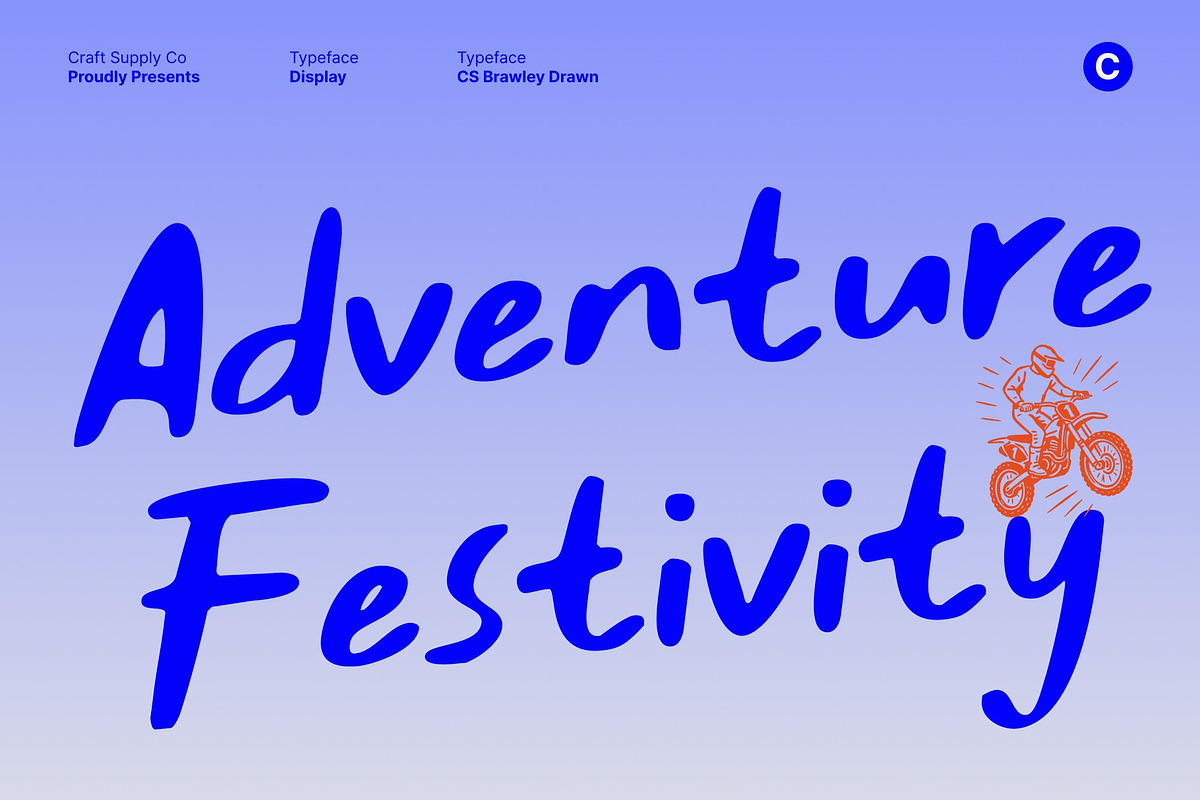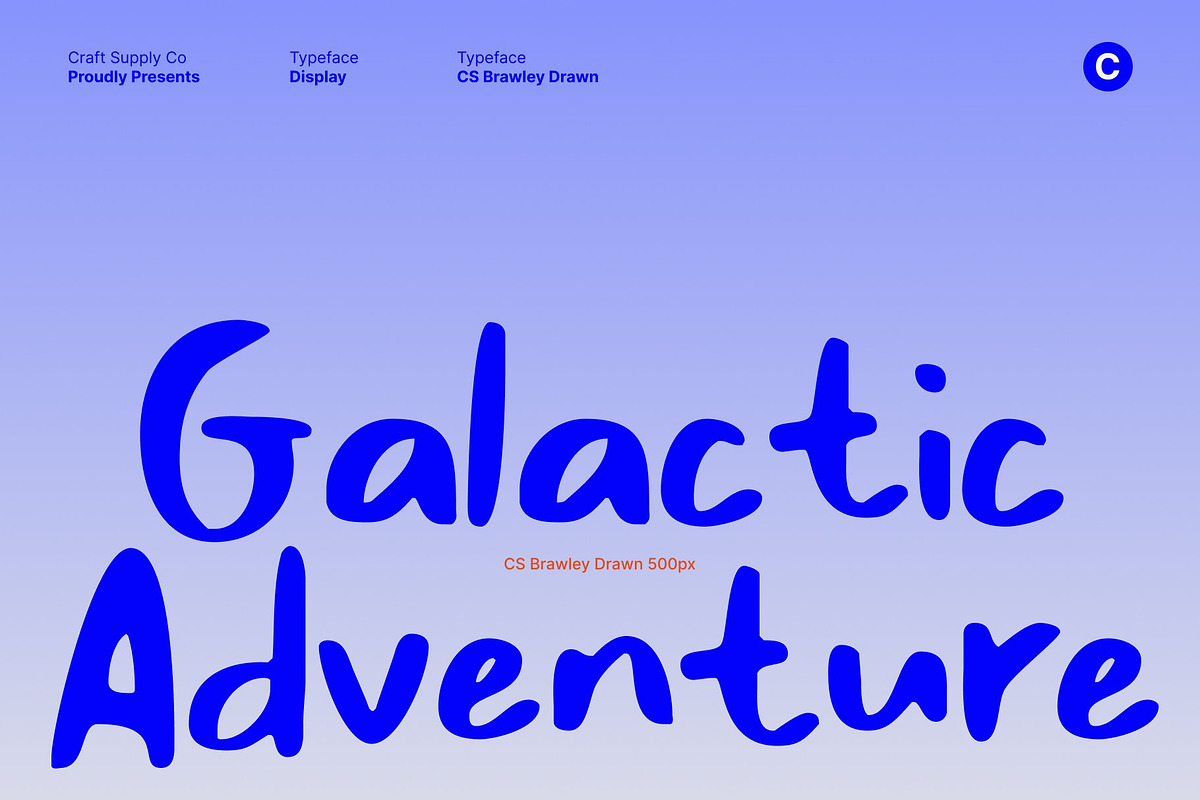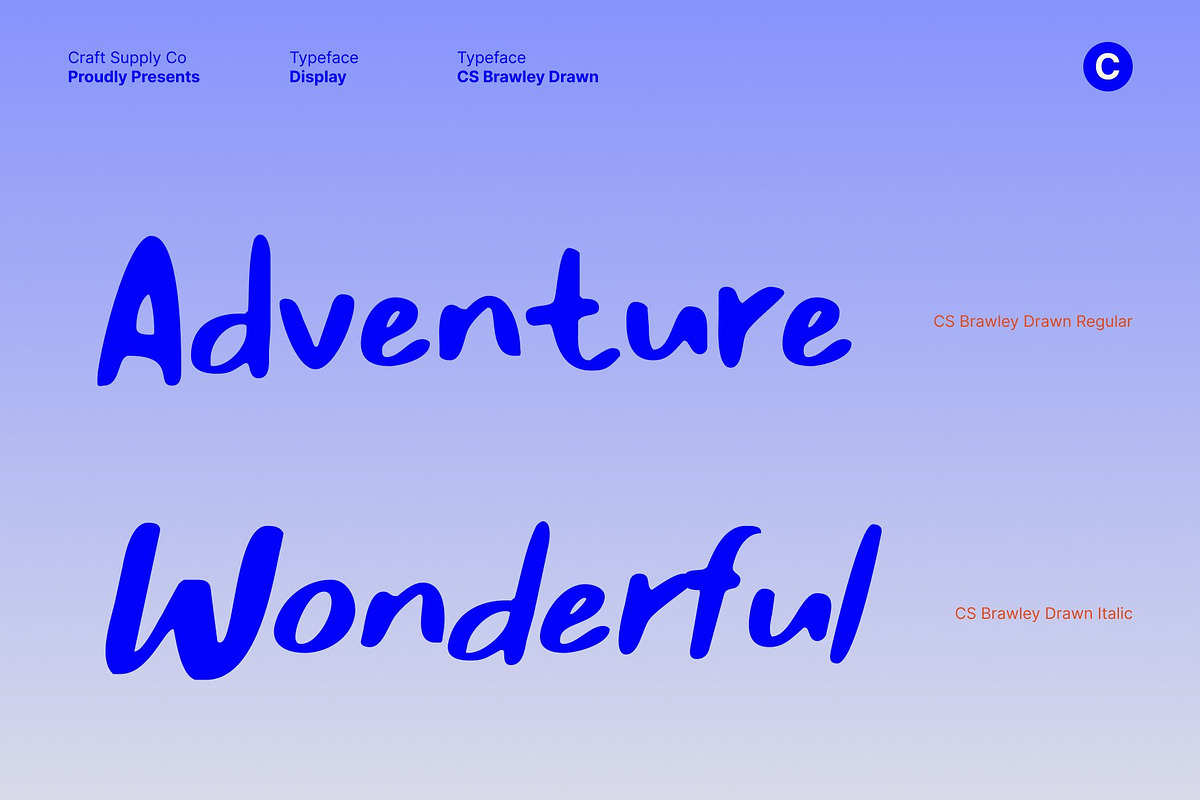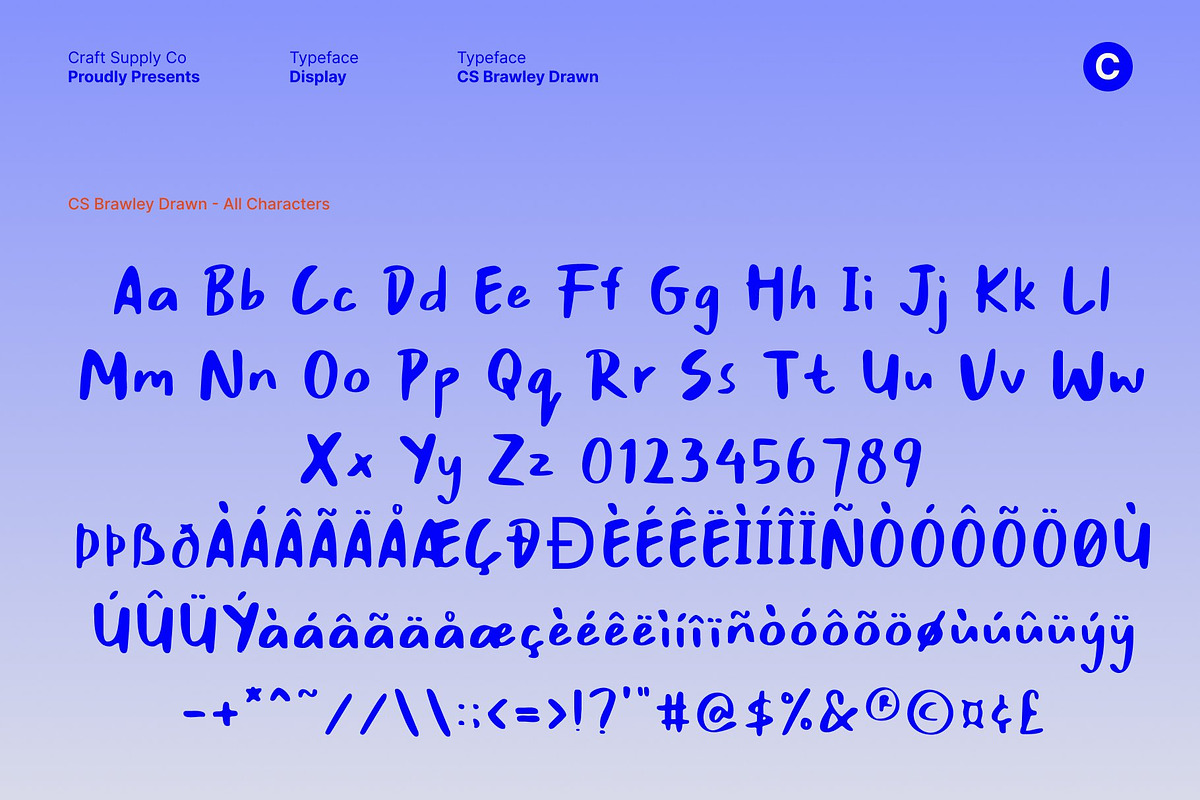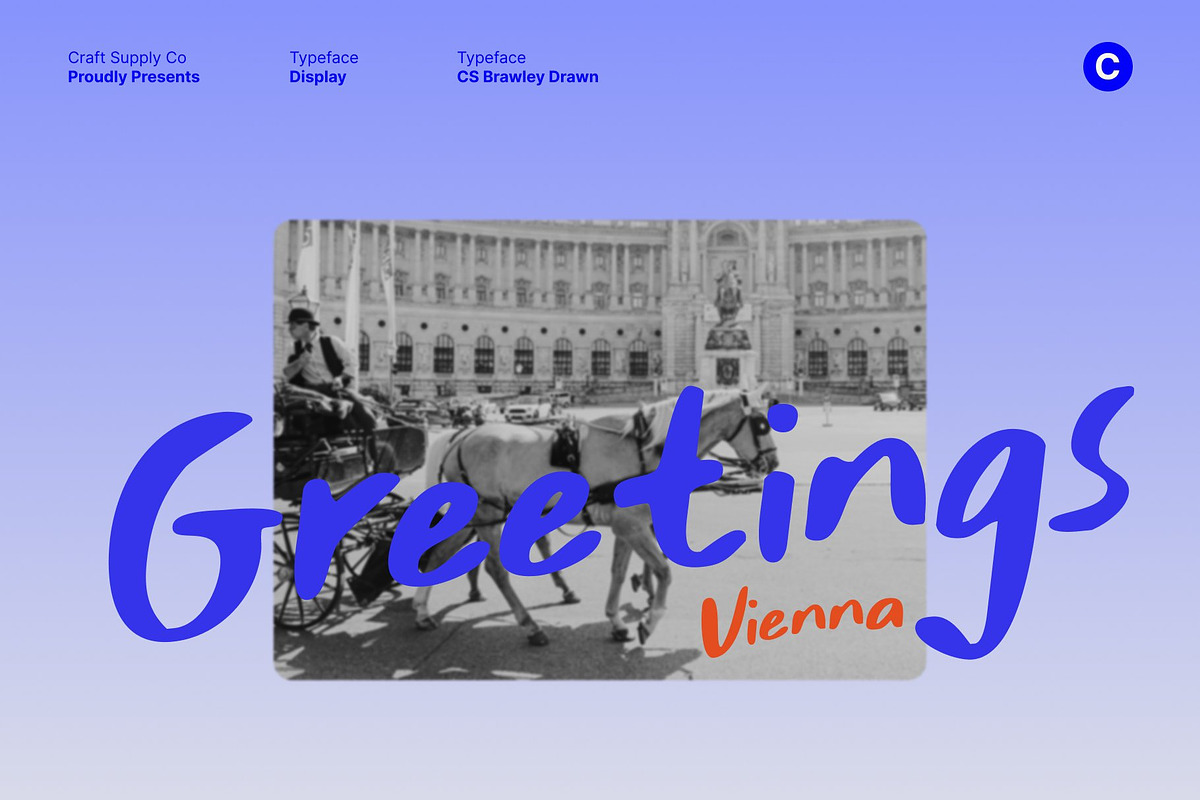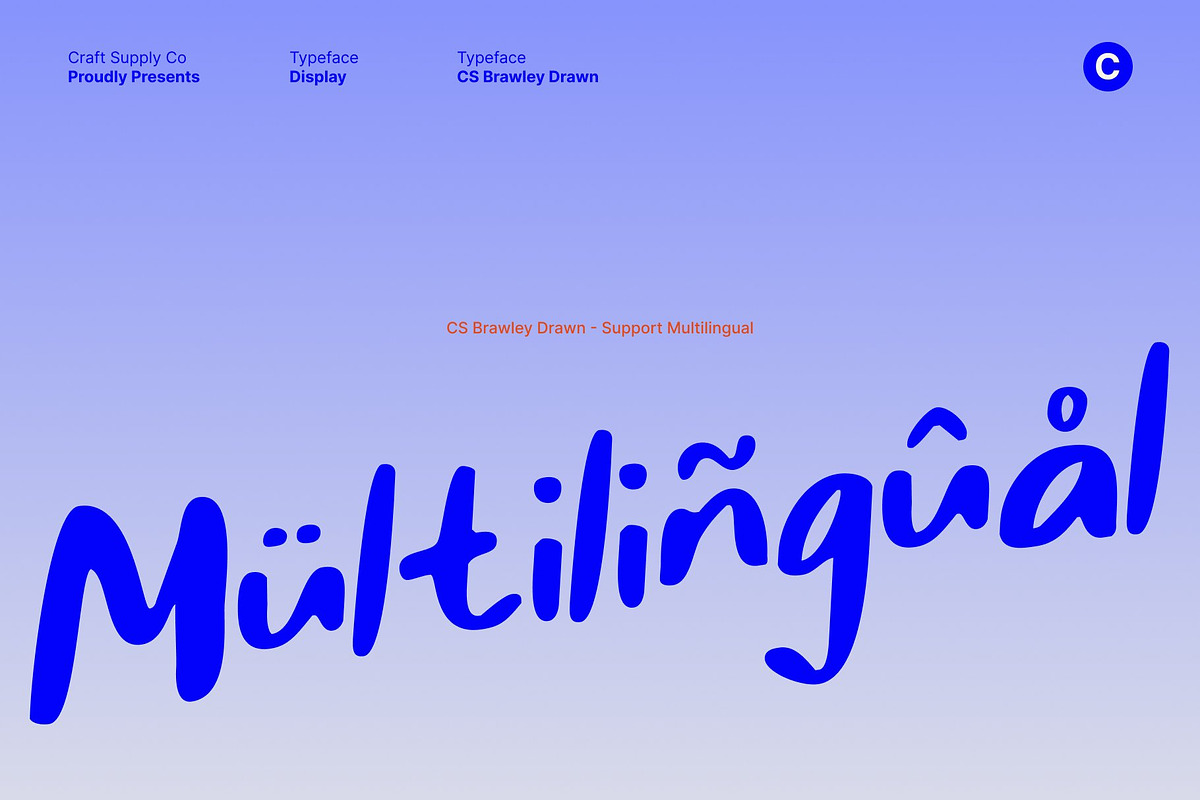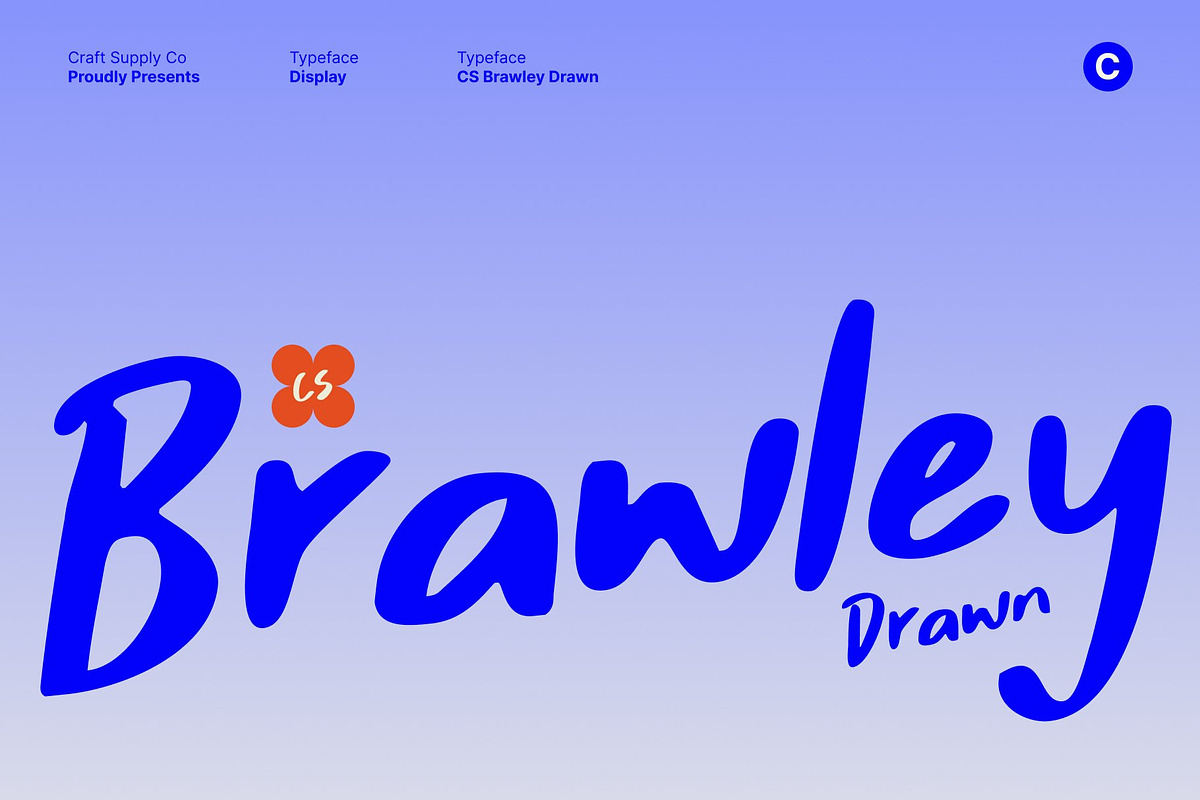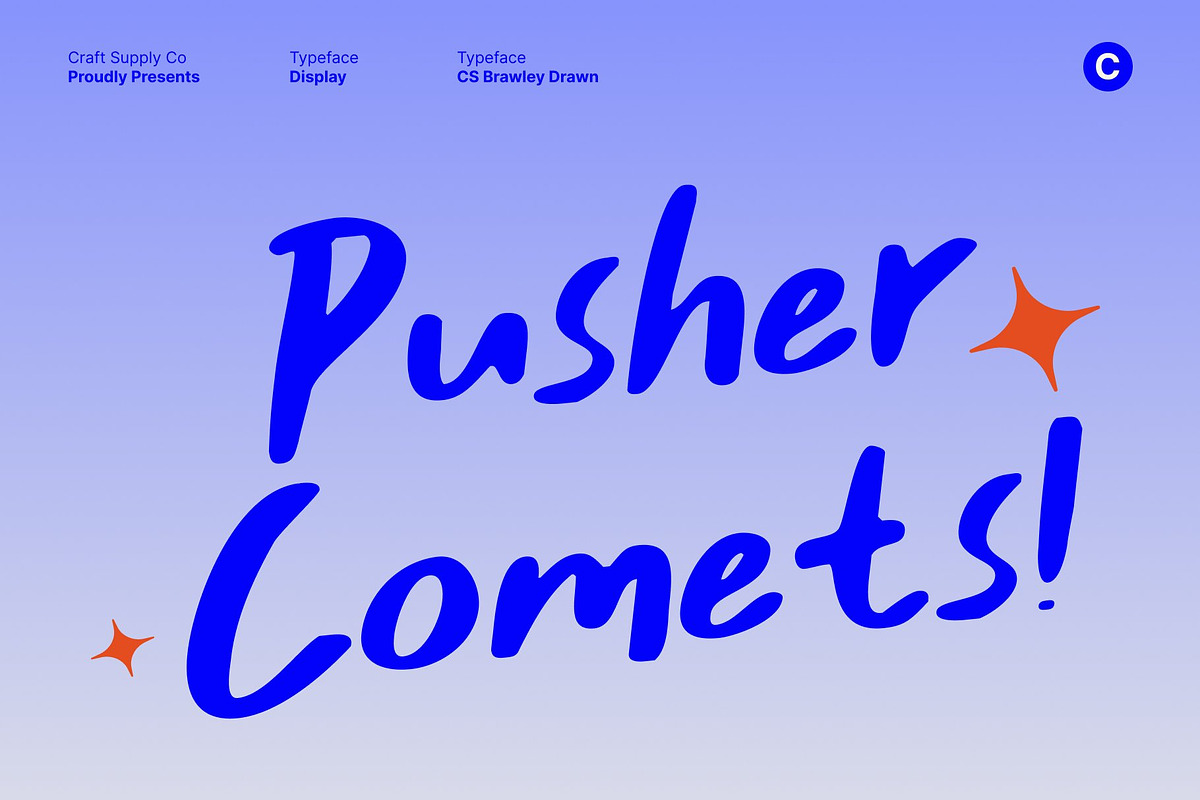
CS Brawley Drawn
CS Brawley Drawn – Bold Expression with a Handcrafted Touch
Marker Font with Natural Sans Serif Style This is a marker-style sans serif font that blends the clean structure of modern typography with the warmth of natural handwriting. Its confident strokes and balanced proportions create a bold presence, while the drawn effect adds a handcrafted quality that feels expressive and authentic. Each letter reflects the character of real marker strokes, resulting in a style that feels energetic yet controlled.
Handwritten Texture for Authentic Personality Every character carries a subtle, organic texture that mirrors the natural imperfection of hand-drawn lettering. This textured, drawn finish gives the font depth and individuality, making text feel more human and engaging. The handcrafted detail enhances visual interest while maintaining strong readability across different sizes and formats.
Modern Simplicity Meets Creative Warmth Built on a sans serif foundation, keeps a clean and structured look while introducing creative warmth through its marker-inspired strokes. This balance allows the font to communicate clarity, confidence, and approachability at the same time. It works equally well for bold headlines, expressive logos, or supporting text that needs personality without chaos.
Perfect for Branding and Creative Projects Designed for versatile creative use, this font shines in branding, editorials, posters, digital content, and expressive layouts. Its bold handwritten texture adds movement and energy, helping designs stand out with a lively, handcrafted edge. With this font, your typography feels confident, warm, and unmistakably human.